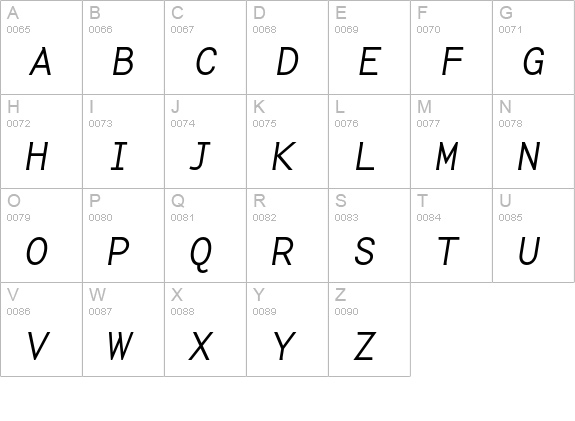
BaseMonoWideThinItalic Font Details
BaseMonoWideThinItalic is a sleek and modern typeface designed for those seeking a minimalist and elegant look. Its thin strokes and wide spacing give a unique touch to any project, making it perfect for branding, editorial design, and more. The italic style adds a dynamic and sophisticated flair to the text, making it stand out while maintaining readability. This font is offered for free and is available for download at FontsMarket.com. With its clean lines and contemporary aesthetic, BaseMonoWideThinItalic is a versatile choice for designers looking to add a touch of sophistication to their work. Whether used in print or digital media, this font is sure to make a statement and elevate any design project to the next level.